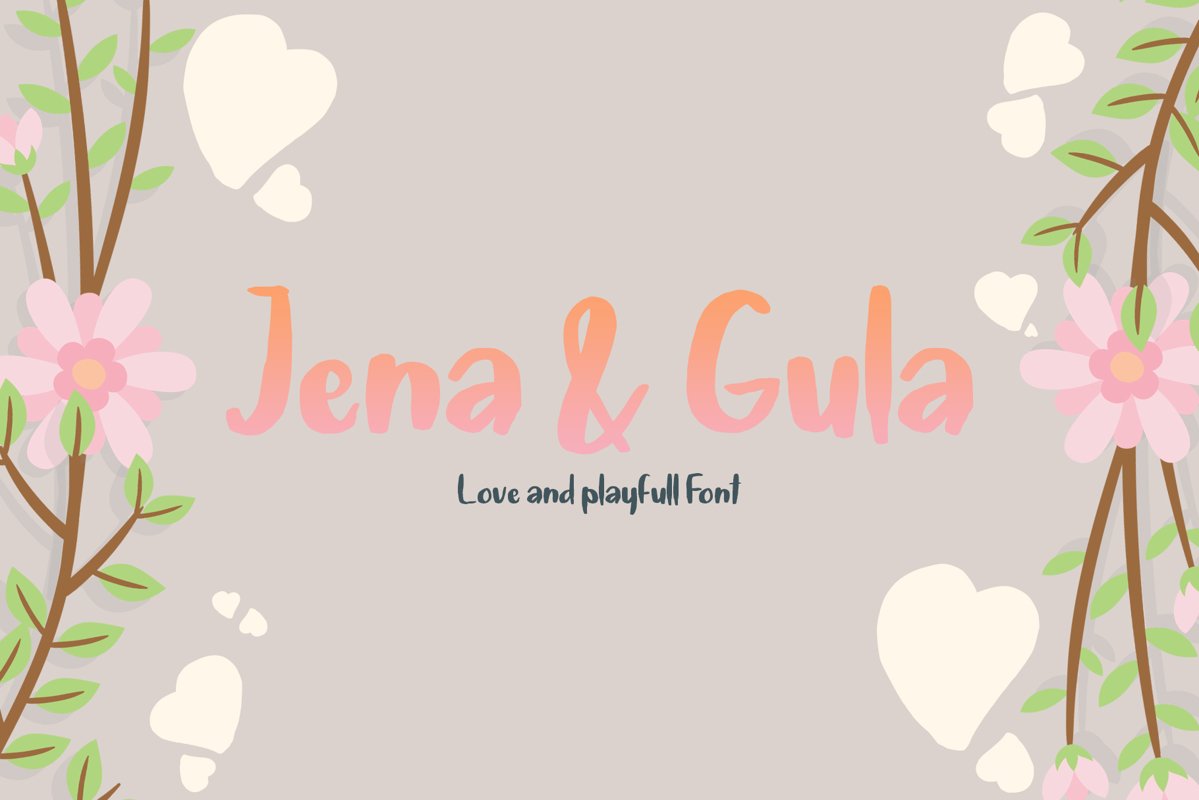
Jena & Gula | Love and Playfull Font
Jena & Gula
Introducing of our new product the name is Jena & Gula a Love and Playful Font. Jena & Gula very good for crafting, kids poster, wedding, promotion poster, cartoon, comic etc.